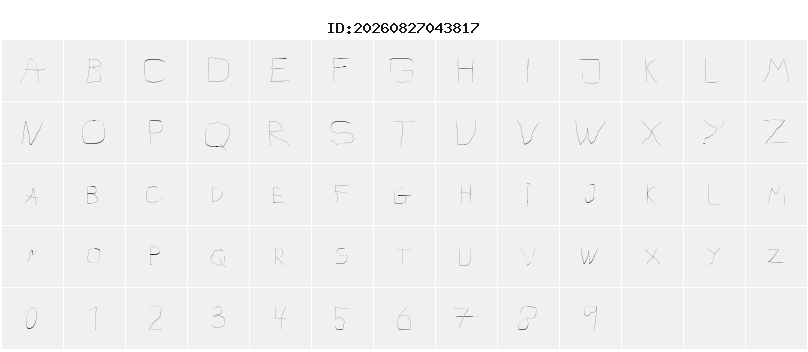
666the number of the font Preview
• Font Name: 666the number of the font
• Font Style: 1
• Font ID: Macromedia Fontographer 4.1 666the number of the font 1
• Full Font Name: 666the number of the font 1
• Version: Macromedia Fontographer 4.1 1997-11-18
• PostScript Name: 666thenumberofthefont1
• Character Count: 91
About 666the number of the font.ttf
666the number of the font.ttf is a modern, elegant sans-serif font designed for ultimate readability and visual harmony. Perfect for branding, headlines, web design, and print materials.